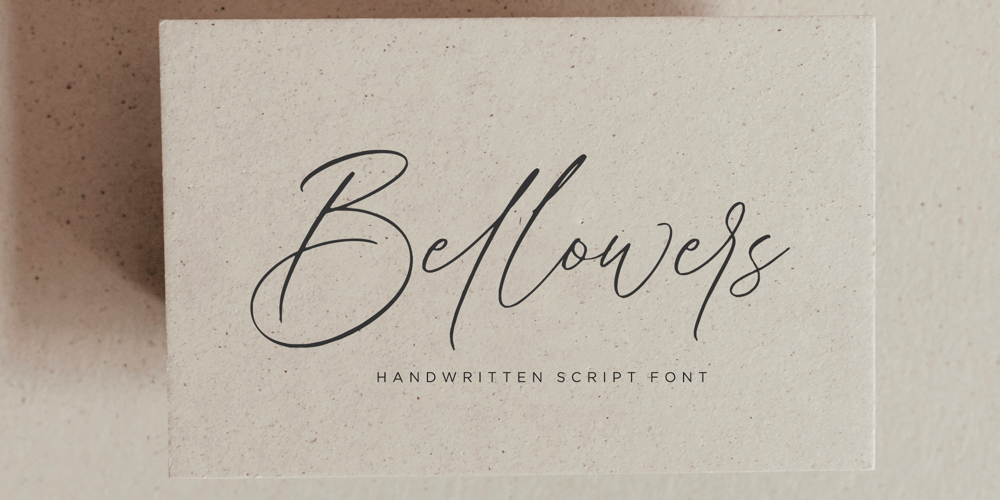
Bellowers
Bellowers font
Bellowers Font Family was designed by Muhammad Fathurrohman and published by Aestherica Studio. Bellowers contains 1 styles and family package options. Introducing a new handwritten script font by Aestherica Studio.Bellowers is perfect for product packaging, branding projects, magazines, social media, wedding, or just used to express words above the background.Enjoy the font.